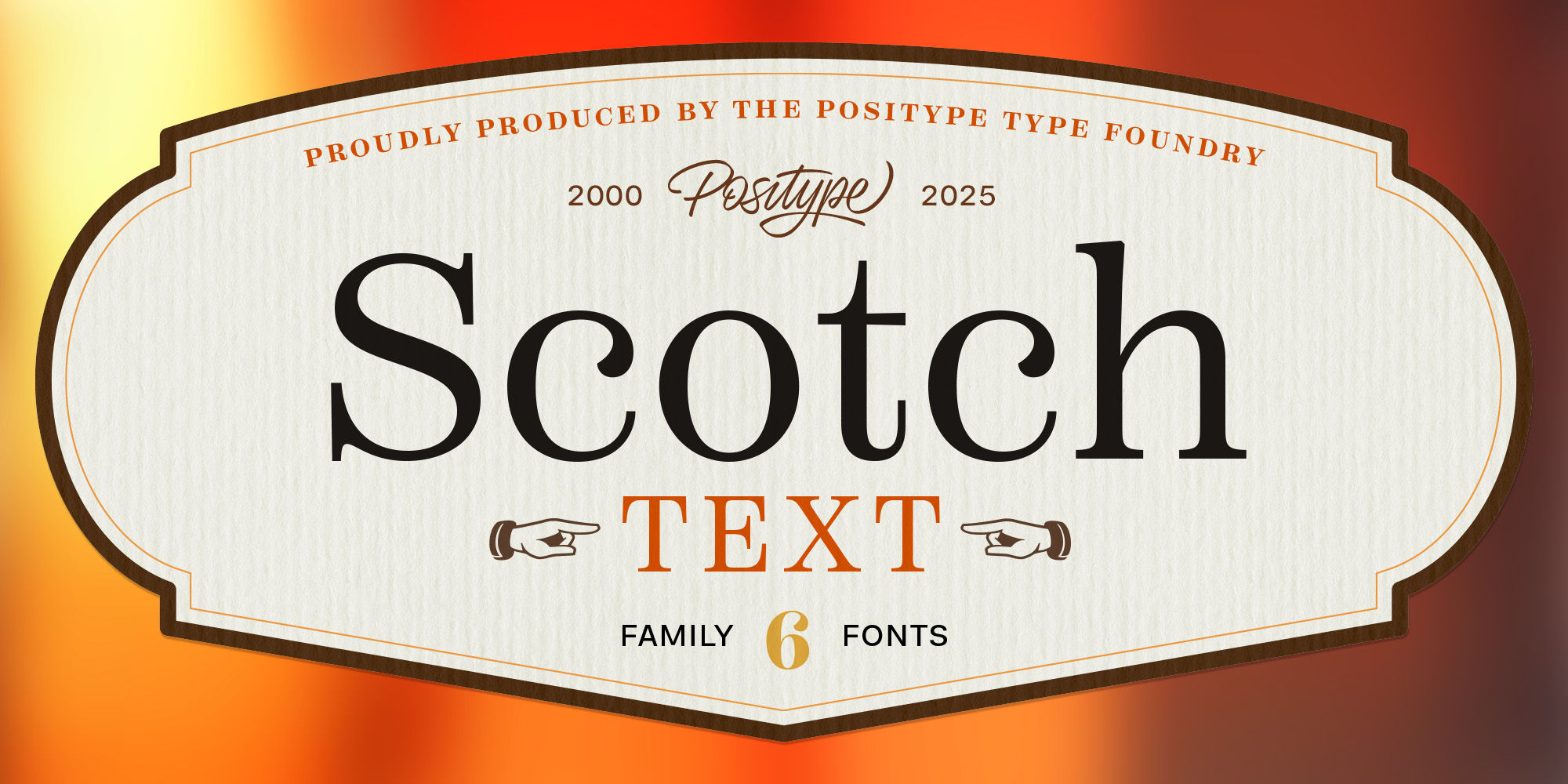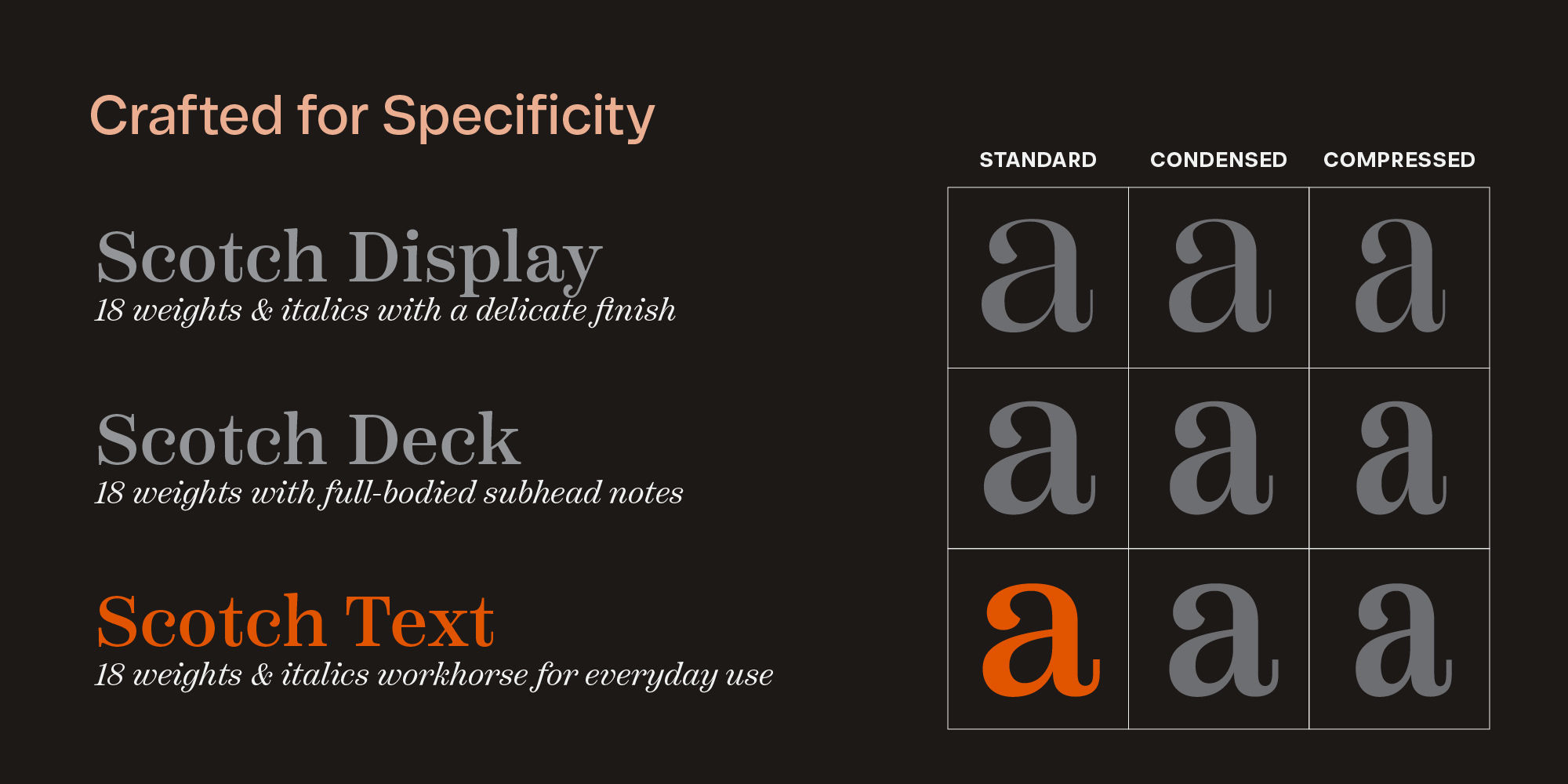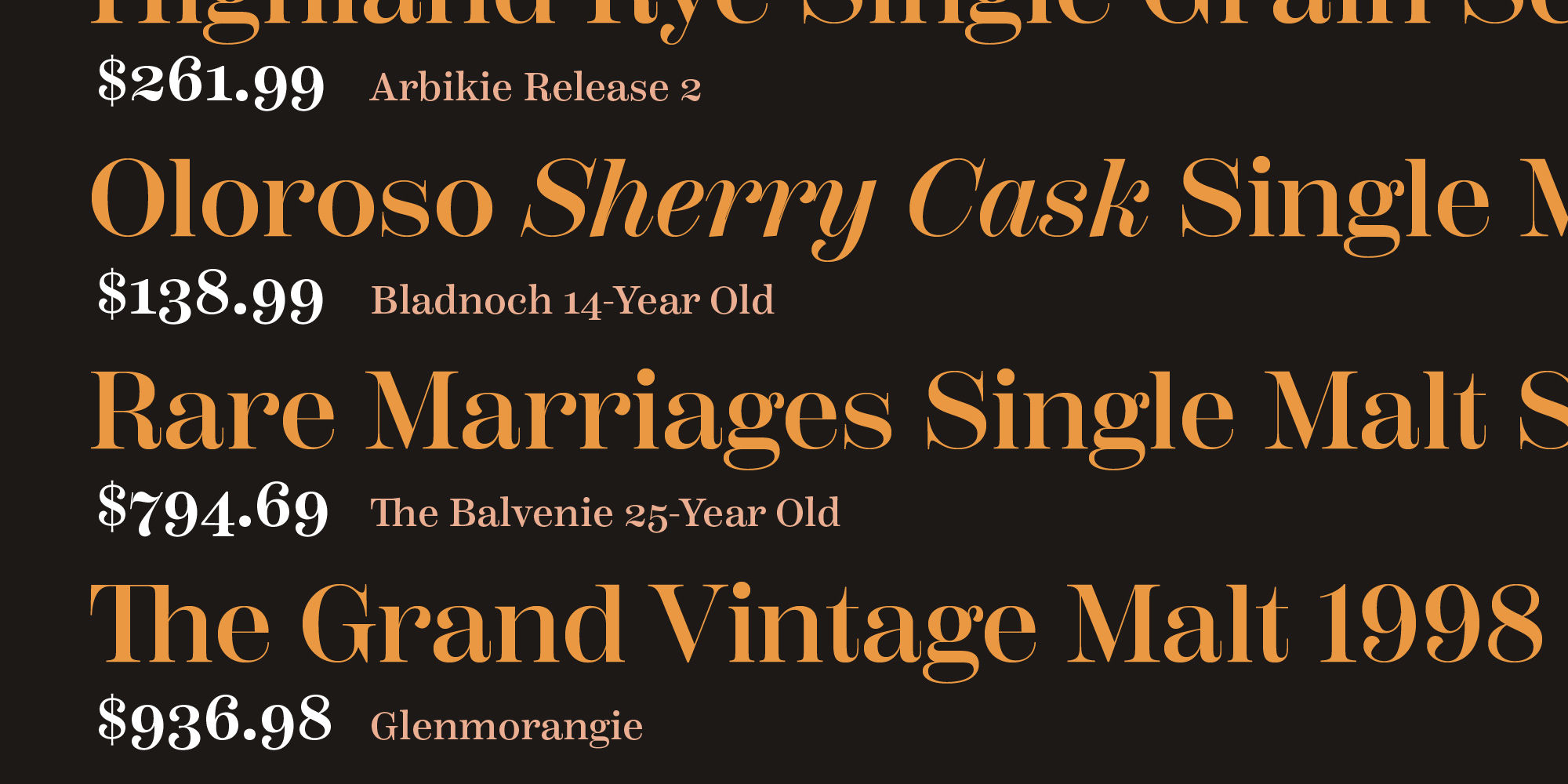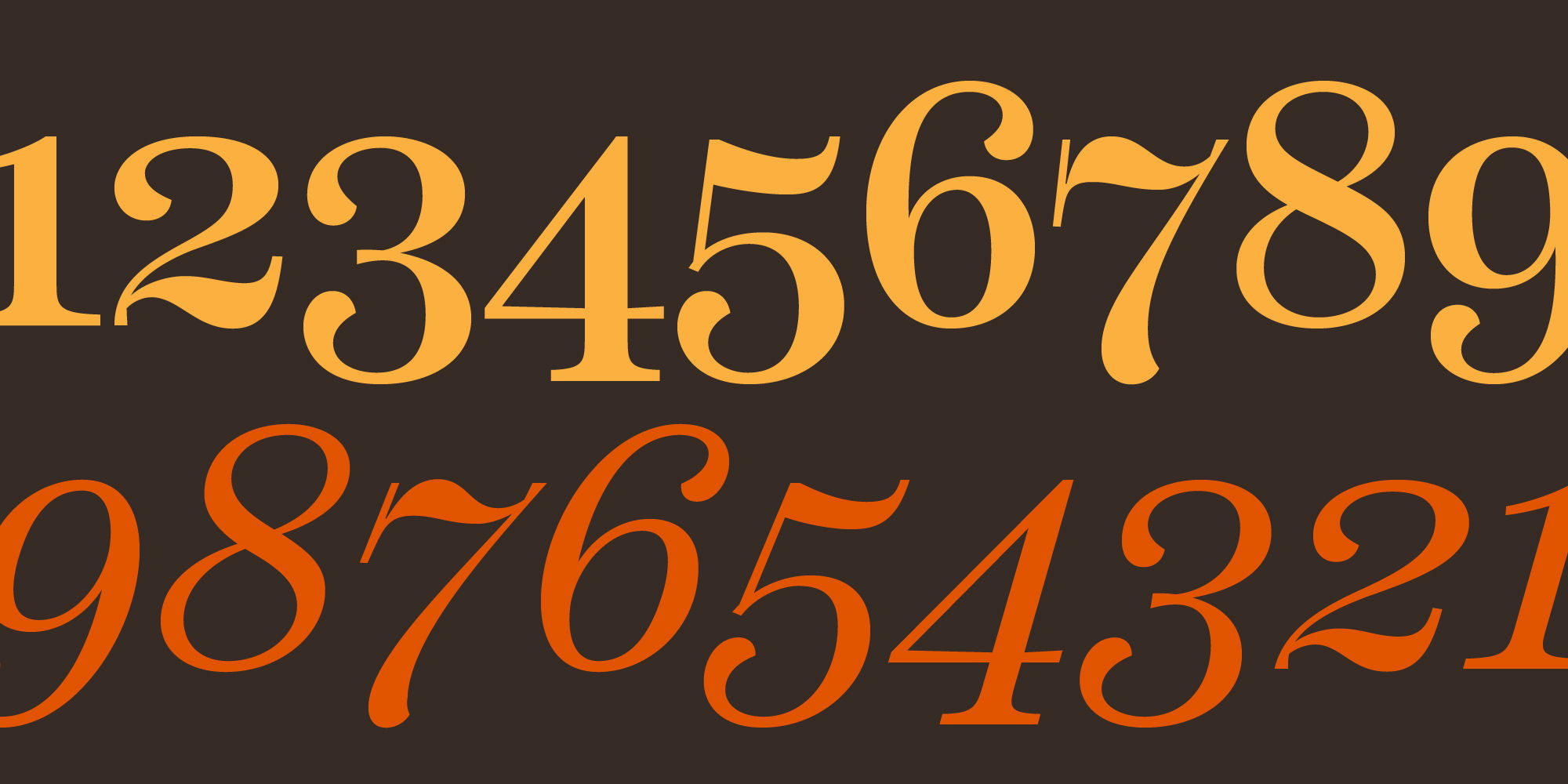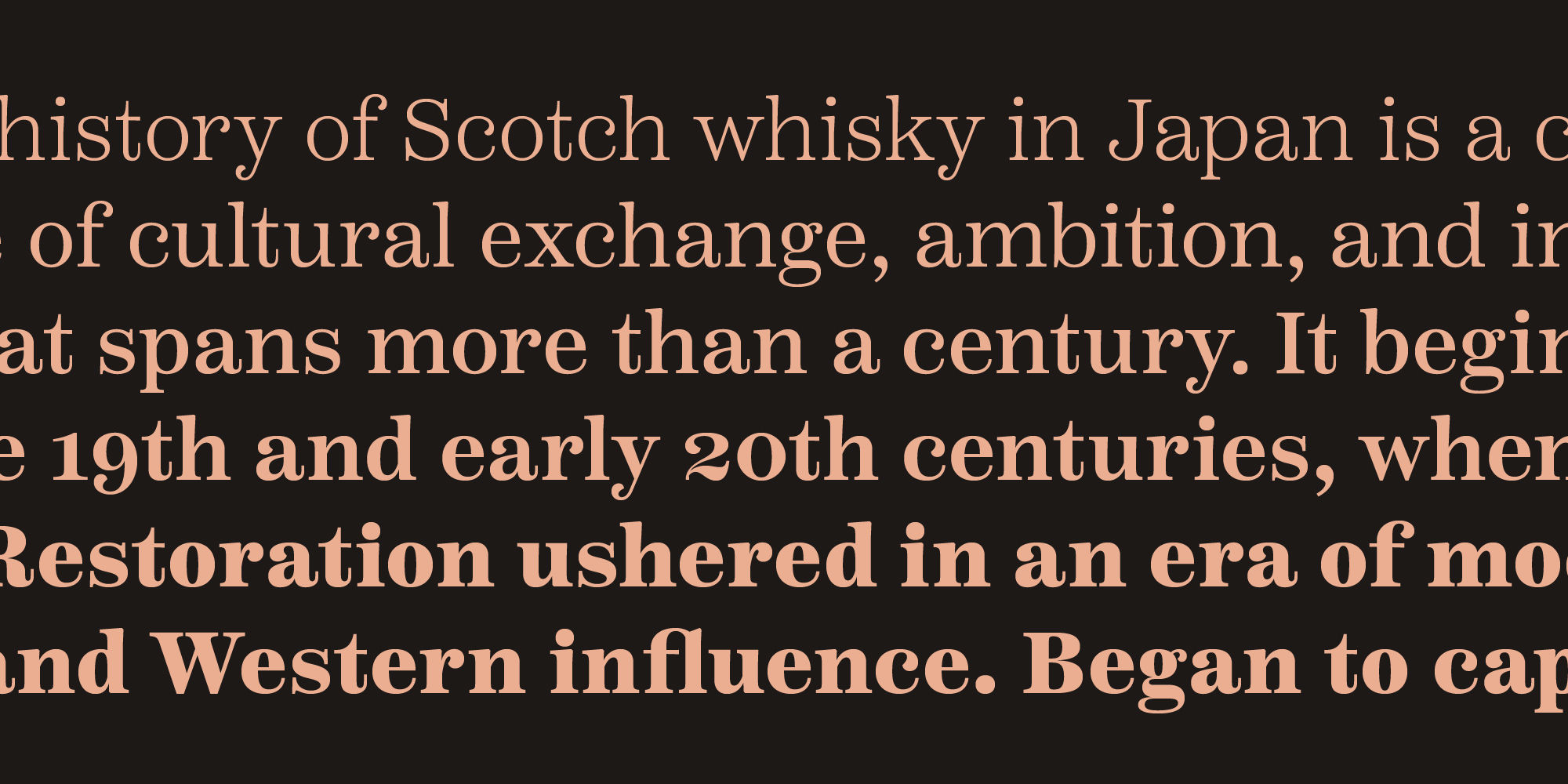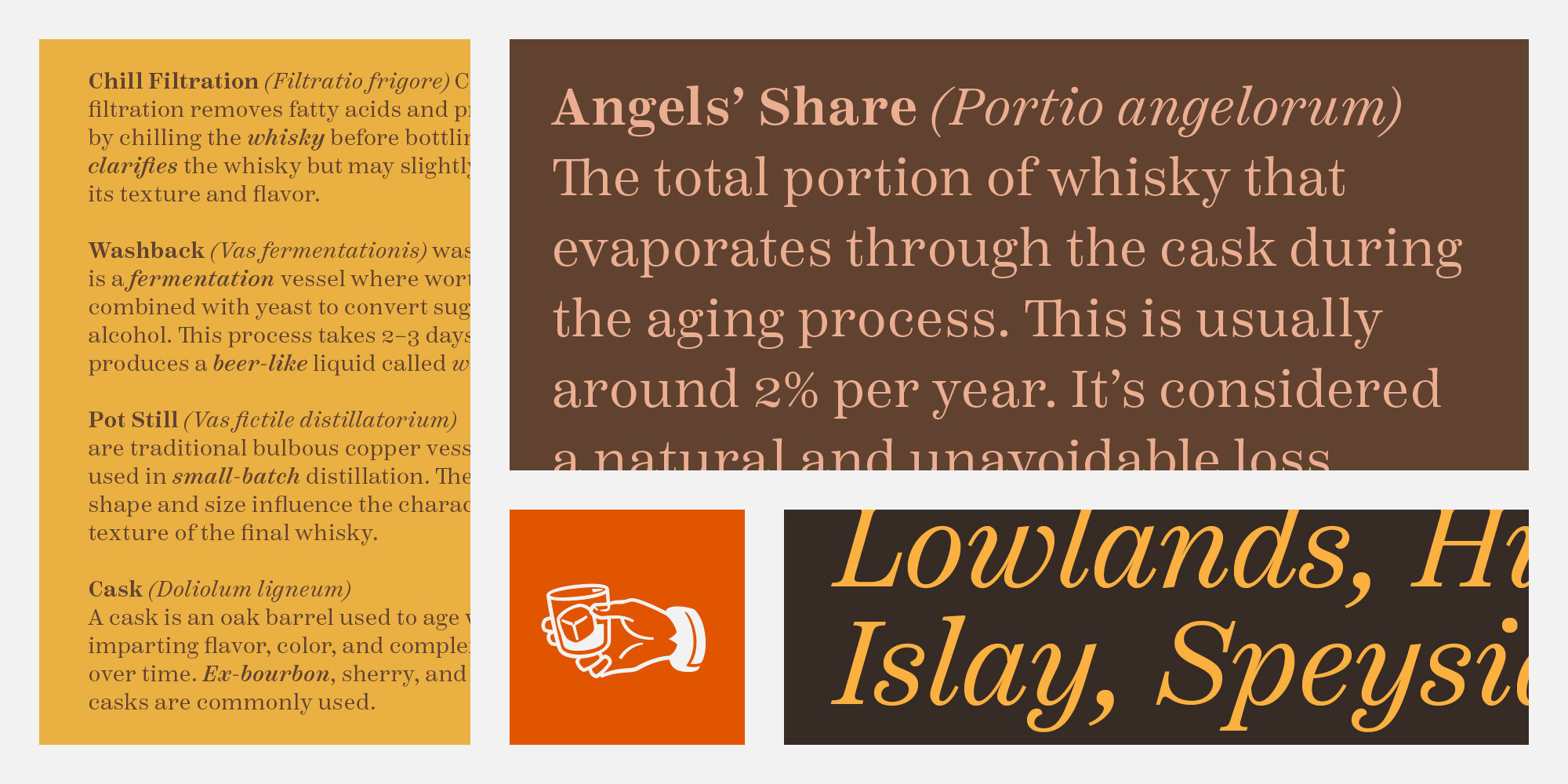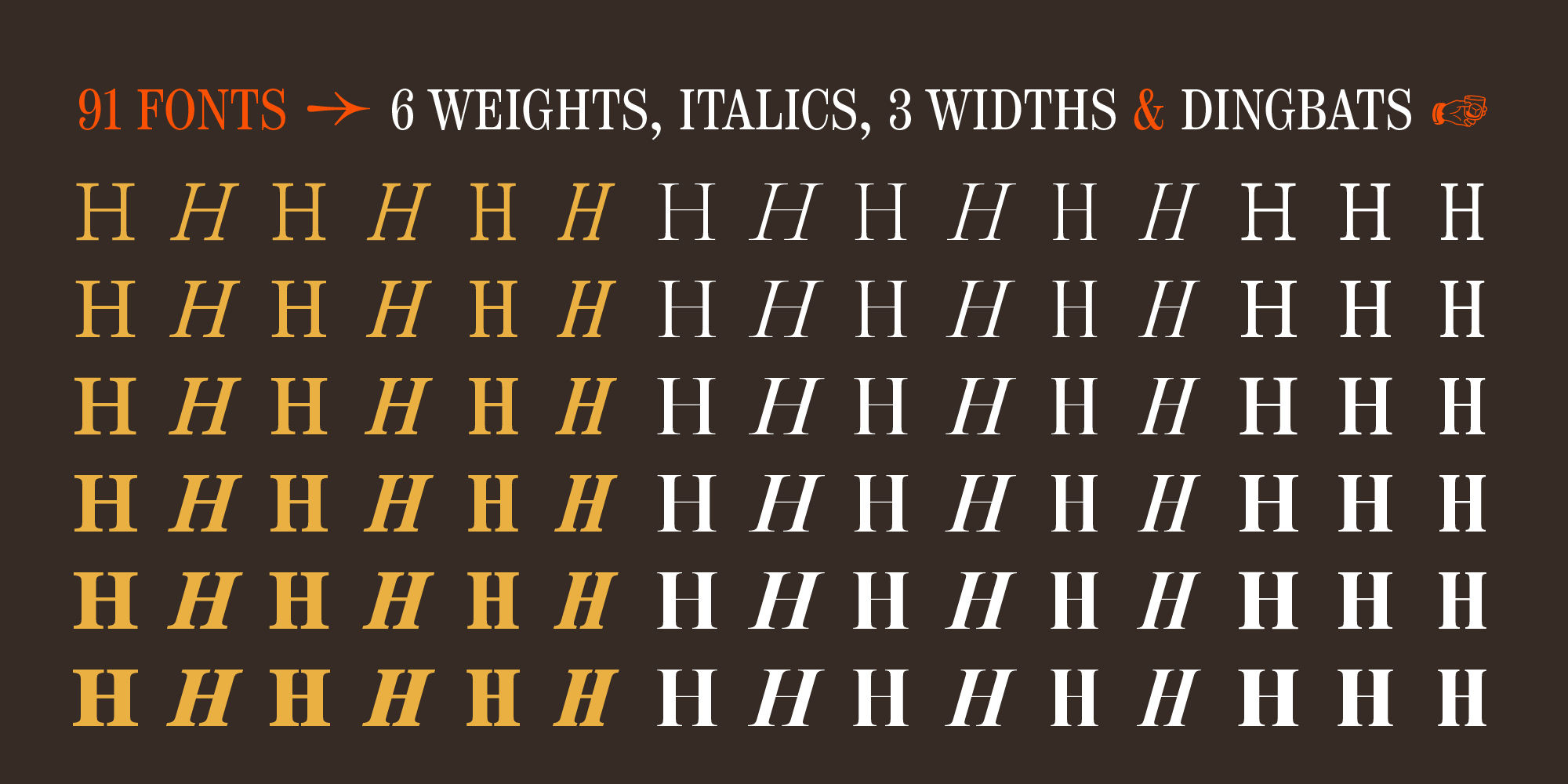
Scotch Text
Th ffb ffi ffk
Standard Ligaturesliga
Small Caps
Small Capssmcp
12/49 3/17 42/89
Fractionsfrac
x2+a35=n8
Superscriptsups
C2H5OH
Scientific Inferiorssinf
1st 2nd 3rd
Ordinalsordn
[H] @ H¿
Case-Sensitive Formscase
0123456789
Tabular Numeralstnum
$1259
Stylistic Set 1ss01
Clean, crisp, rational, familiar, modern… serifed. Positype Scotch reaches back to history just enough to produce something warm and easy on the eyes. No corners were cut, no quick tricks… this type suite was drawn for specificity: Text, Display, and Deck… ALL in 3 widths that now include Condensed and Compressed. Each unique, each inter-connected, each part of the whole.
Scotch Text is offered in 6 weights with matching true italics. Drawn for economy and an easy read, the family is a workhorse for long-passage text settings. 4 sets of numerals, well-proportioned small caps, and a plethora of extras round out each font.
Scotch Display is not just a thinner version of Scotch Text wrapped in a higher contrast. Display sports shorter ascenders and descenders, a unique footprint, great contrast, and a more folded, calligraphic italics. Display subtly oozes sophistication and provides an attractive, exhuberant companion to Scotch Text.